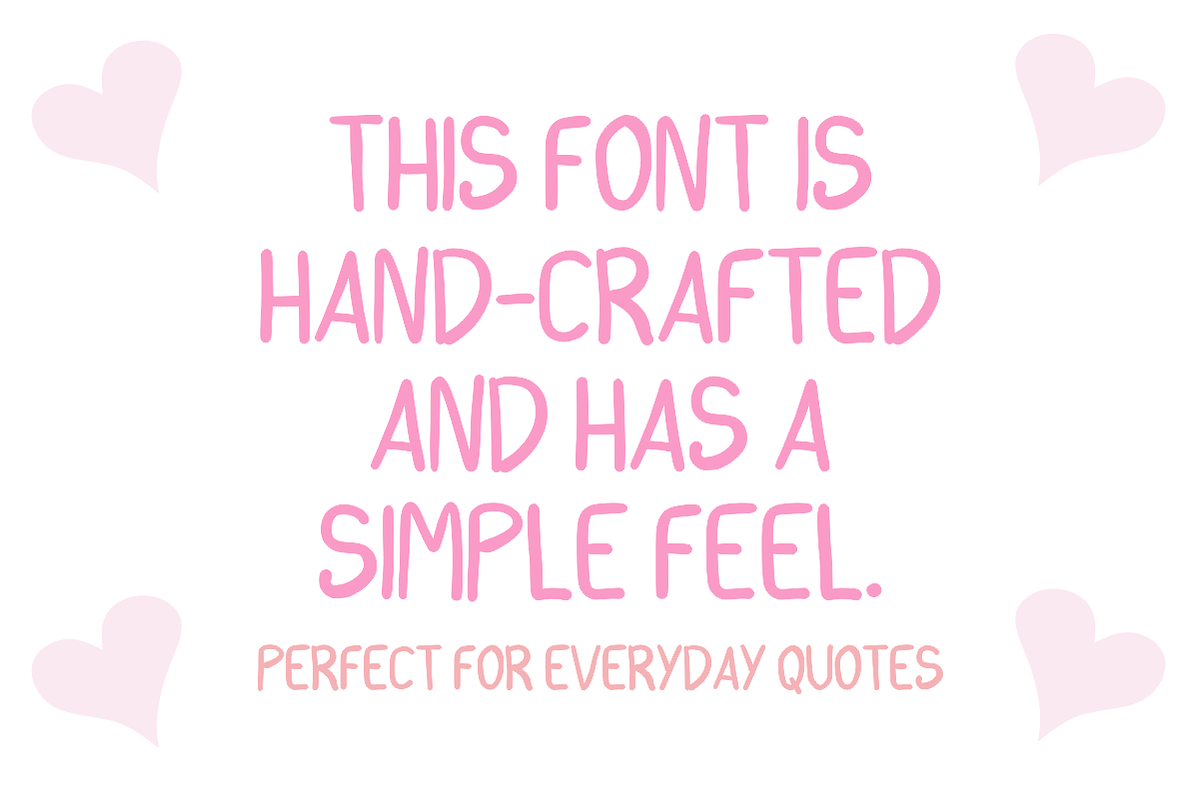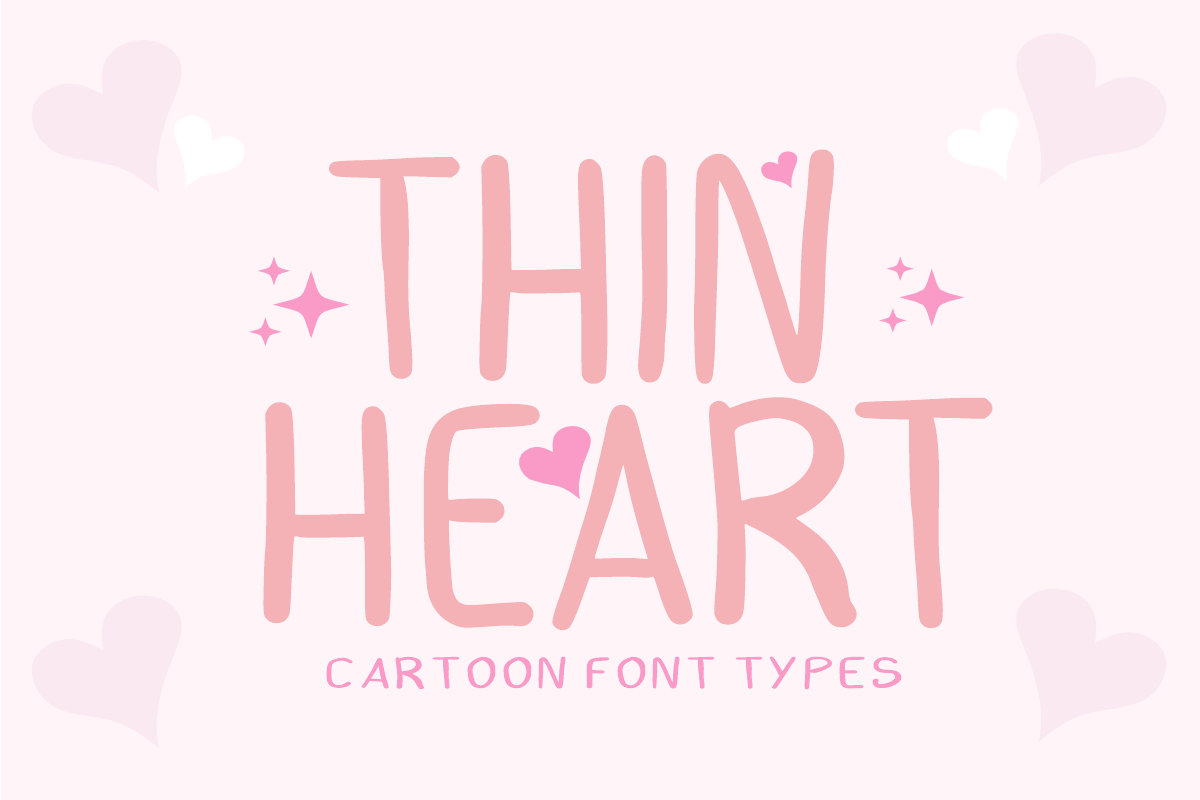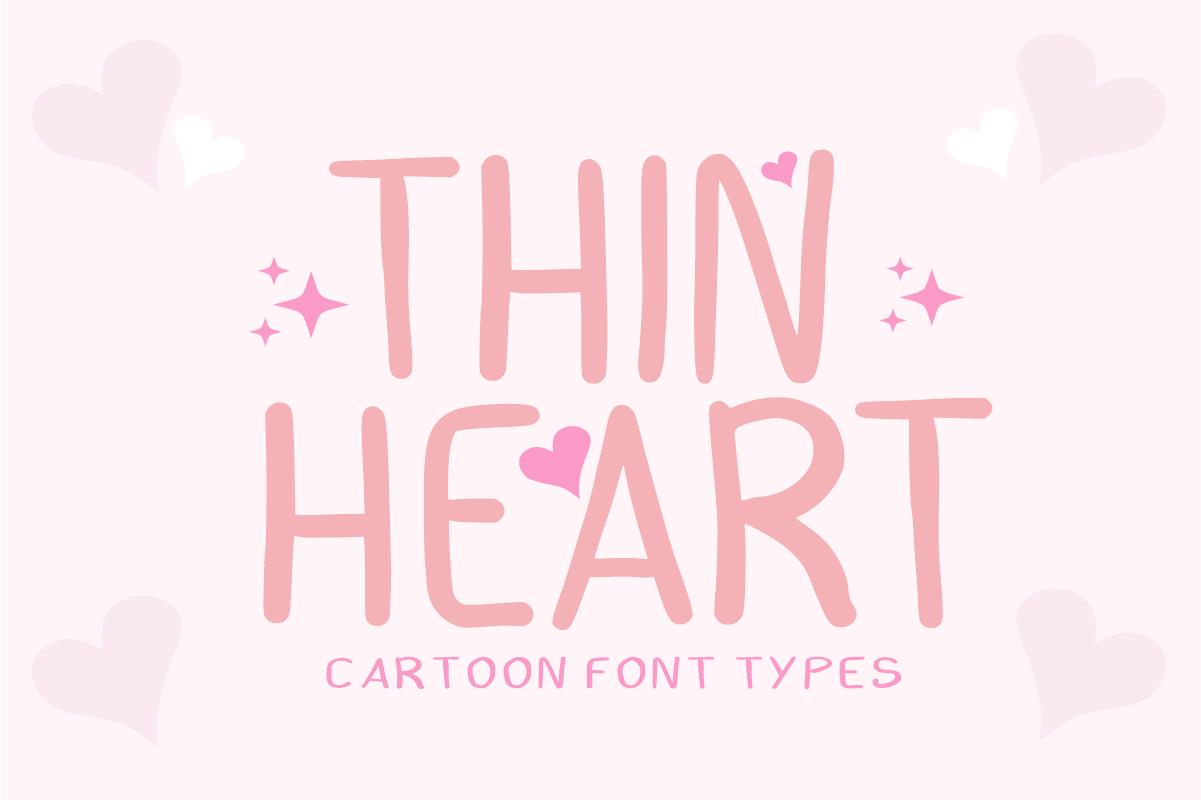
Thin Heart - Cute Handwritten Font
Thin Heart - Playful Cute Handwritten Font
Add a touch of sweet, whimsical charm to your creative projects with Thin Heart! This adorable, tall handwritten font features a clean, delicate, and playful style designed to give your text a loving, handcrafted feel while maintaining excellent legibility.
Perfect for romantic themes, juvenile branding, and lovely everyday crafts, Thin Heart beautifully combines a minimalistic handwritten aesthetic with clean vector shapes. It is fully optimized for smooth cutting and flawless presentation in both print and digital layouts.
All-Caps Character Set (Tall, cute uppercase letters with a playful handwritten vibe)
Numbers & Basic Punctuation (Essential, simple symbols included)
Valentine’s Day Cards, Wedding Invitations, & Love Letters 💖
Cricut, Silhouette, & DIY Craft Sublimation Projects ✂️
Cute Sticker Design, Planners, & Journaling Accents 📓
Kids' Product Packaging, Nursery Decor, & Clothing Prints 🧸
Social Media Graphics, Quotes, & Sweet Branding Displays 📱